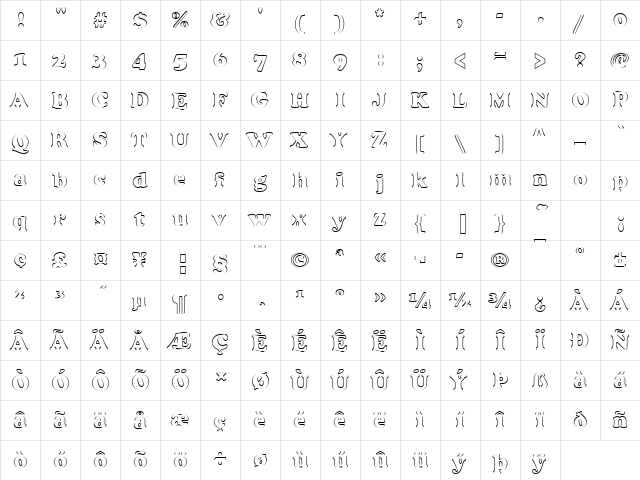
Cooper Becker Black Outline Regular
Design Context for Cooper Becker Black Outline Typeface
Cooper Becker Black Outline brings ornamental detail and strong personality to headlines and identities, where visual impact matters more than quiet functionality.
Font Pairing: Pair with a clean neutral sans-serif for body copy to let Cooper Becker Black Outline's character lead without overwhelming the composition.
Pro Tip: Treat Cooper Becker Black Outline as the centrepiece of your typographic hierarchy. One strong heading set in a decorative face can carry an entire layout.